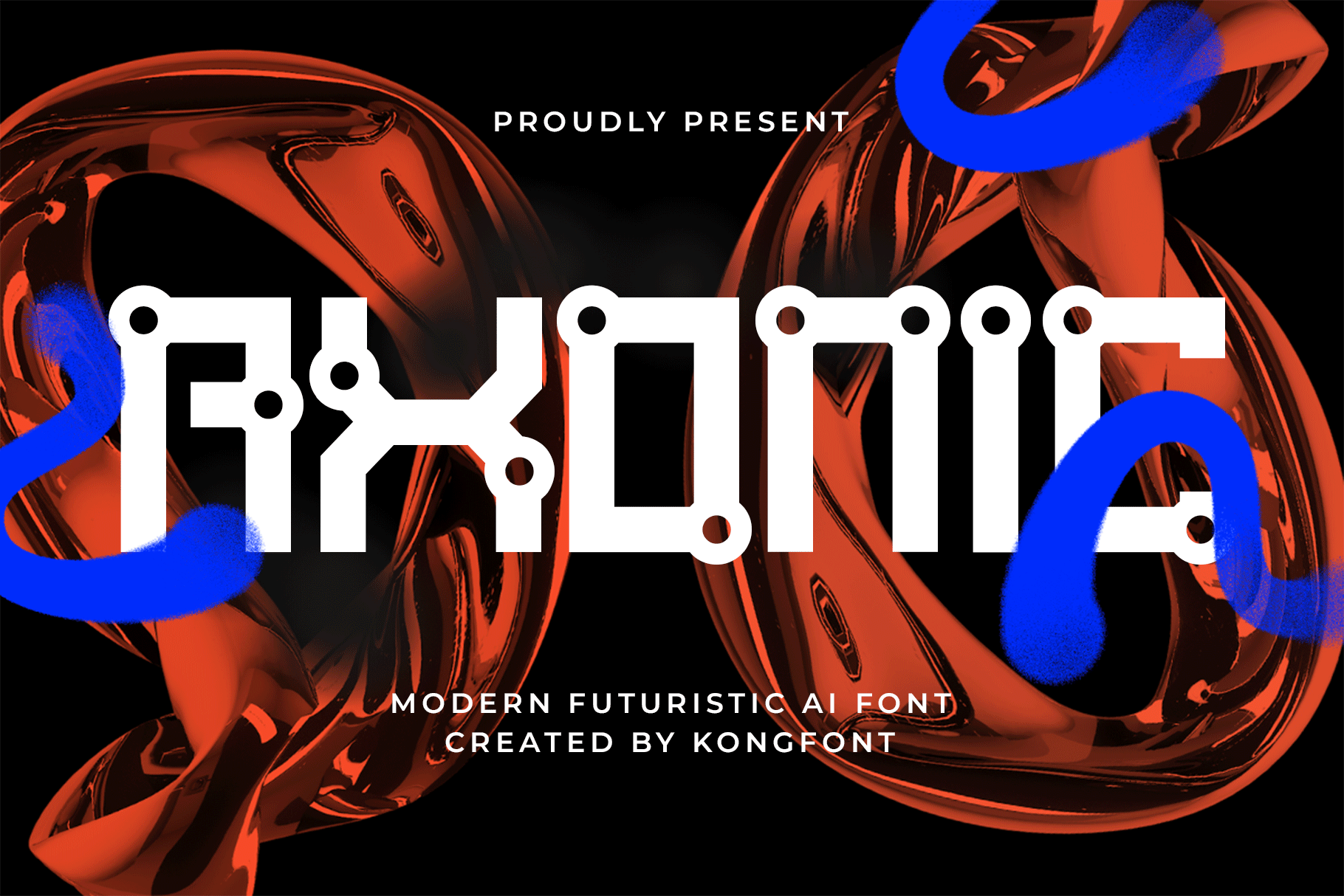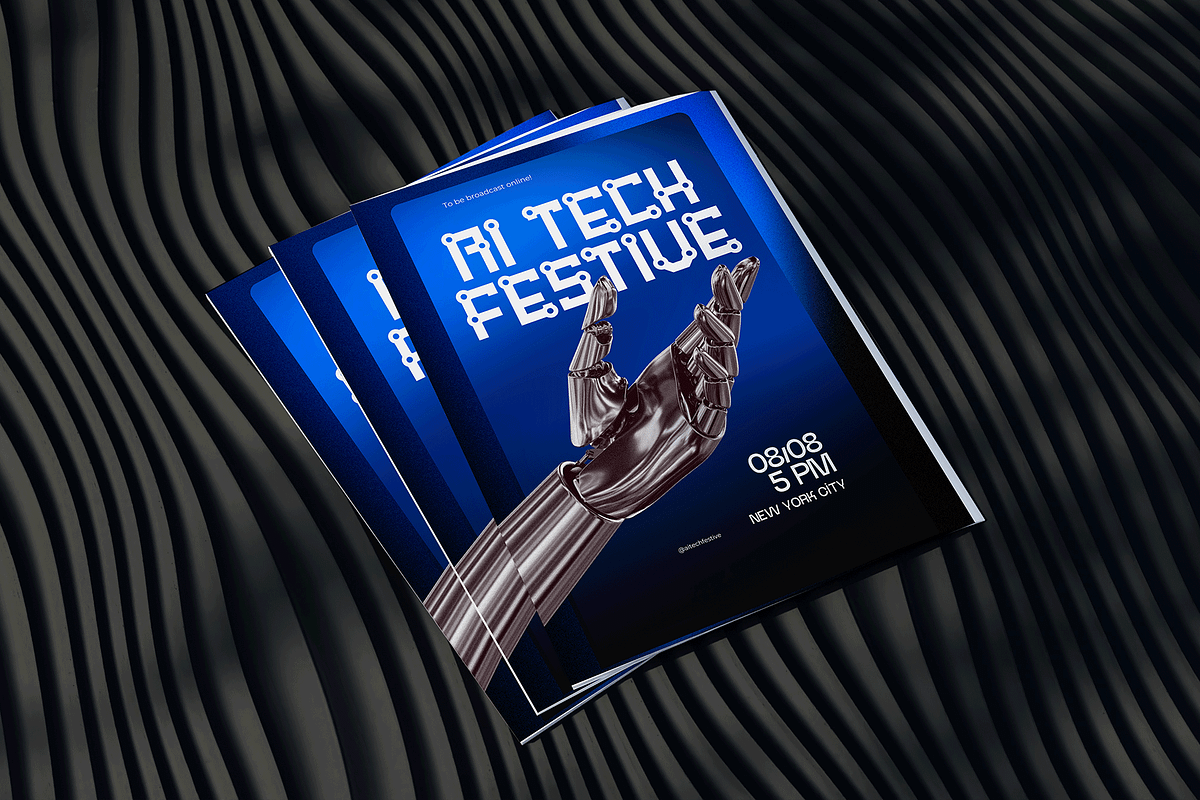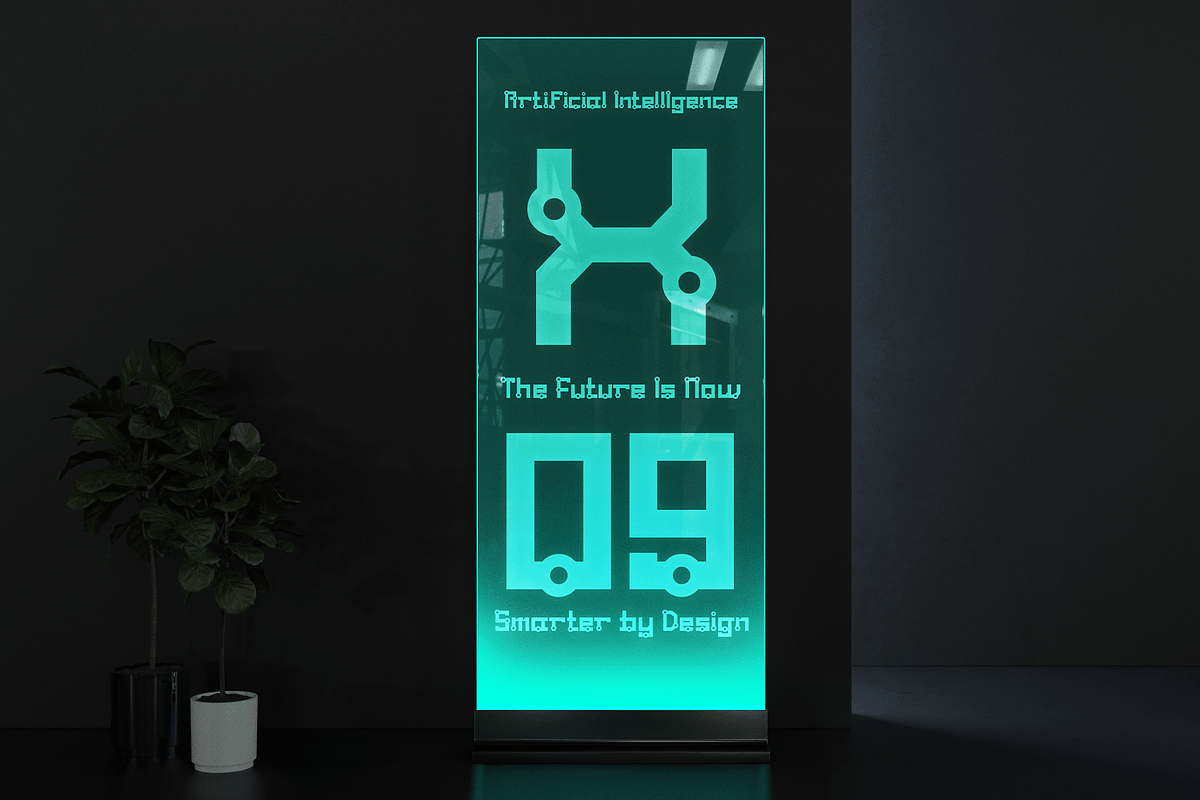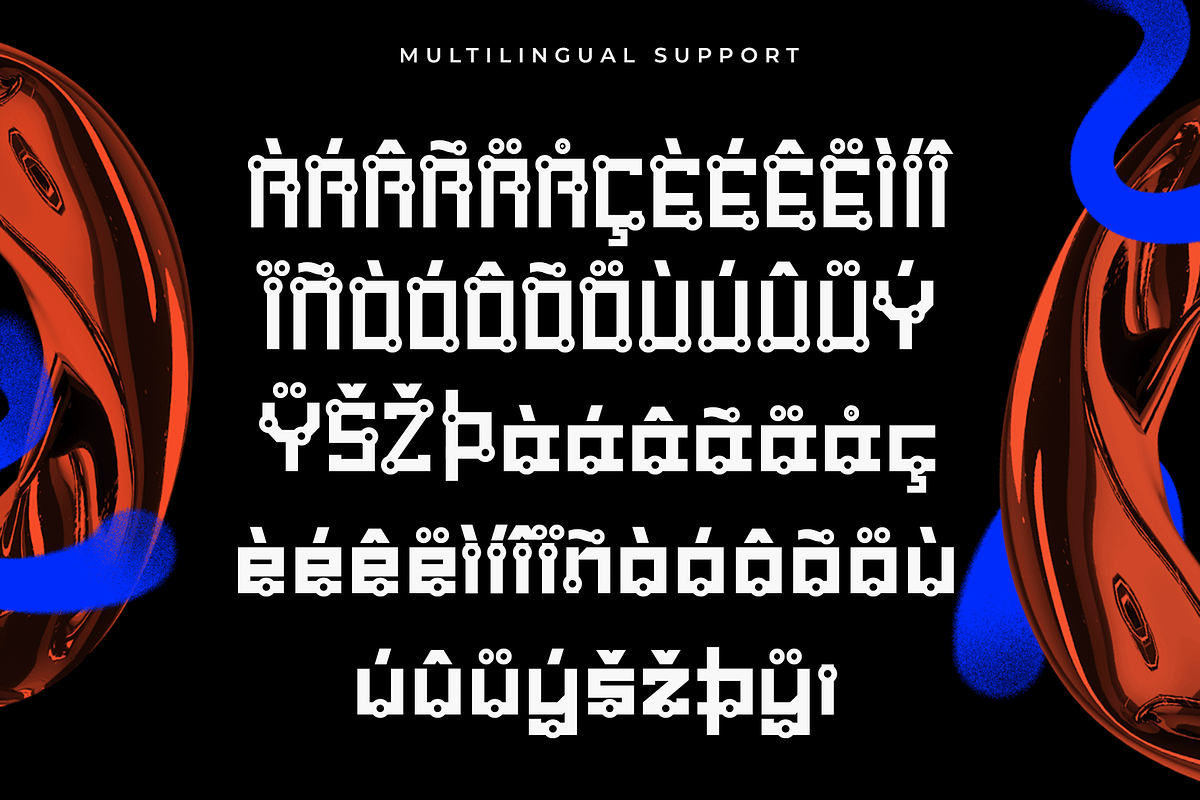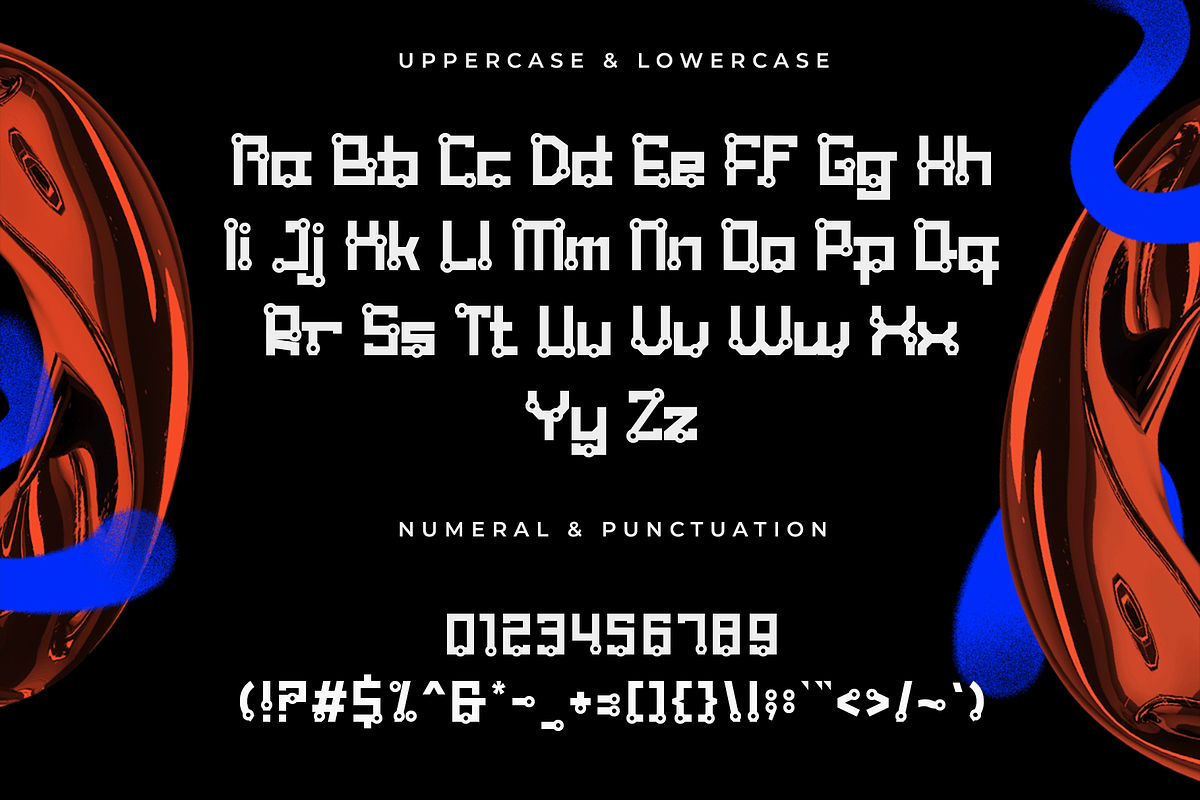
Axonic – Modern Futuristic AI Font
Axonic is a modern futuristic AI font crafted to represent innovation, technology, and the digital future. With its sleek geometric structure, sharp futuristic details, and clean modern styling, Axonic delivers a powerful high tech aesthetic designed for forward thinking creative projects.
Perfect for AI branding, technology startups, gaming graphics, esports identities, sci-fi posters, UI interfaces, robotics concepts, digital products, and cyber inspired visuals, Axonic creates a bold and intelligent visual presence that instantly feels futuristic.